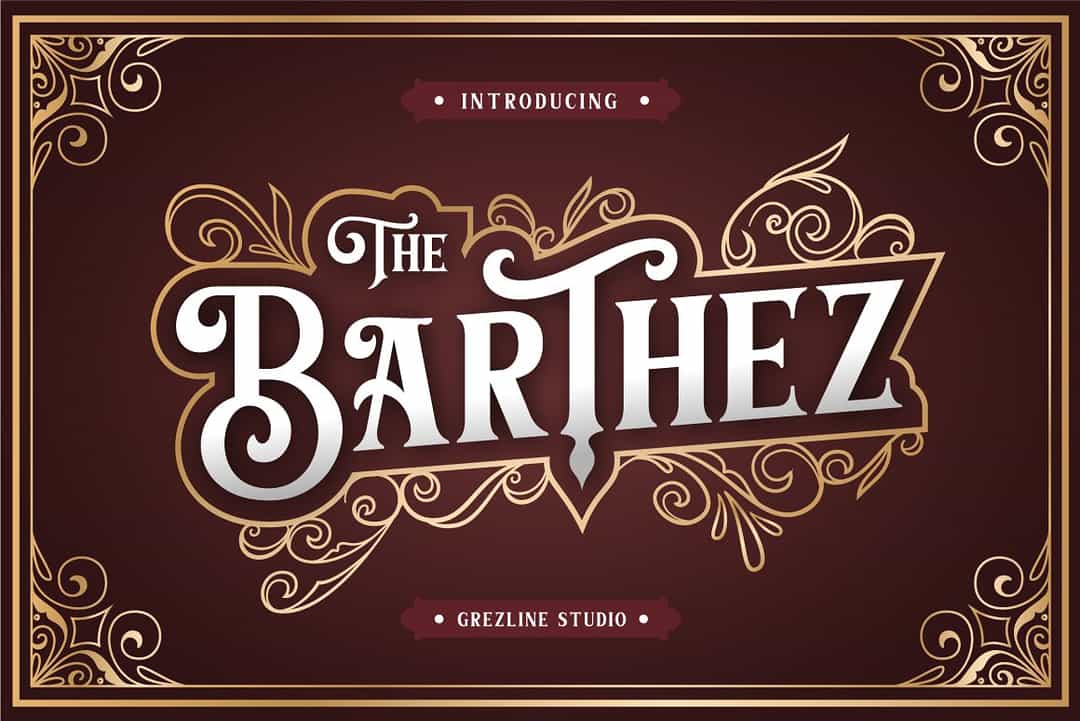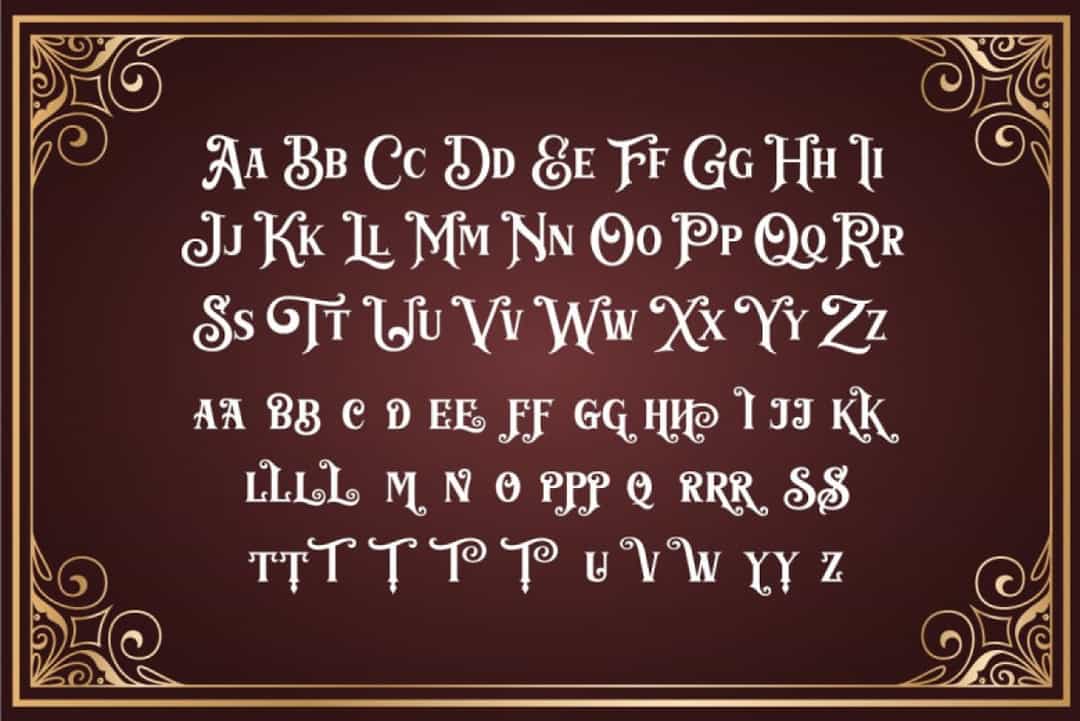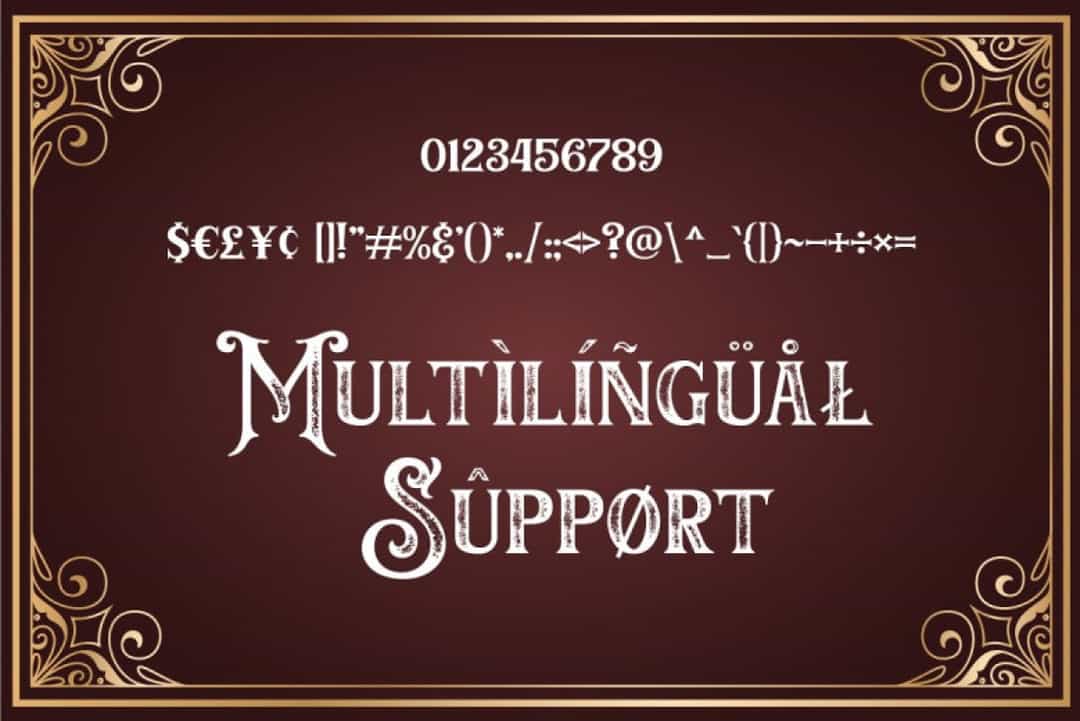
Barthez can be described as an old-fashioned serif typeface heavily inspired by Victorian design. Available in Regular, Inline and Stamp versions – each comes with its own shadow font style that creates six different font styles altogether – this font provides the ideal solution to add handcrafted Victorian textures into branding styles that need that rustic charm.